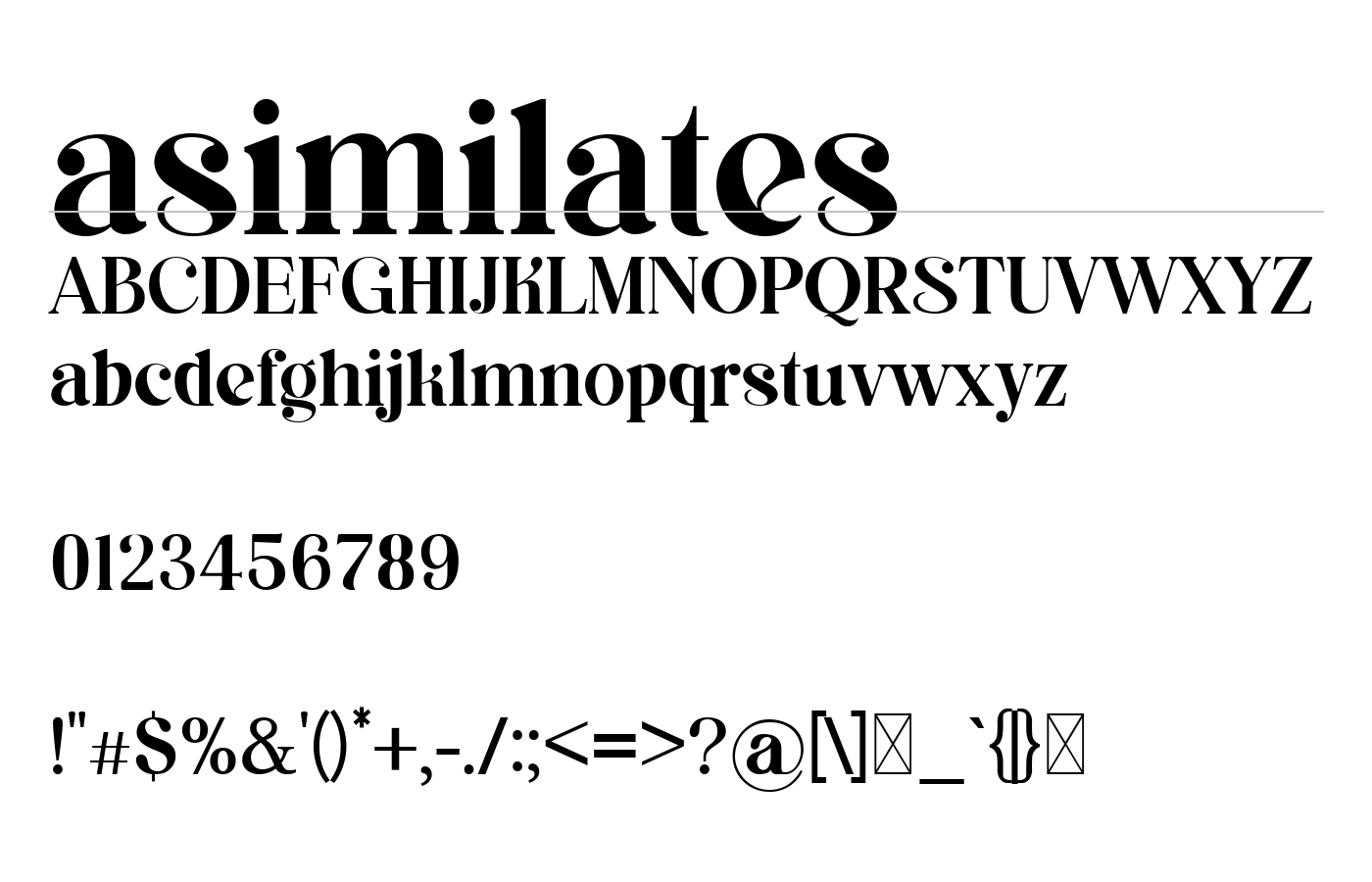
Asimilates is a bold serif font with high contrast between thick and thin strokes, featuring elegant, sharp serifs and a distinctive modern flair. Its tall x-height and unique letterforms, such as the stylized lowercase "g" and fluid ampersand, give it a sophisticated yet approachable personality ideal for luxury branding, editorial headlines, and fashion-focused design. This font works beautifully where a striking, refined presence is needed to communicate elegance and contemporary style.
asimilates Font